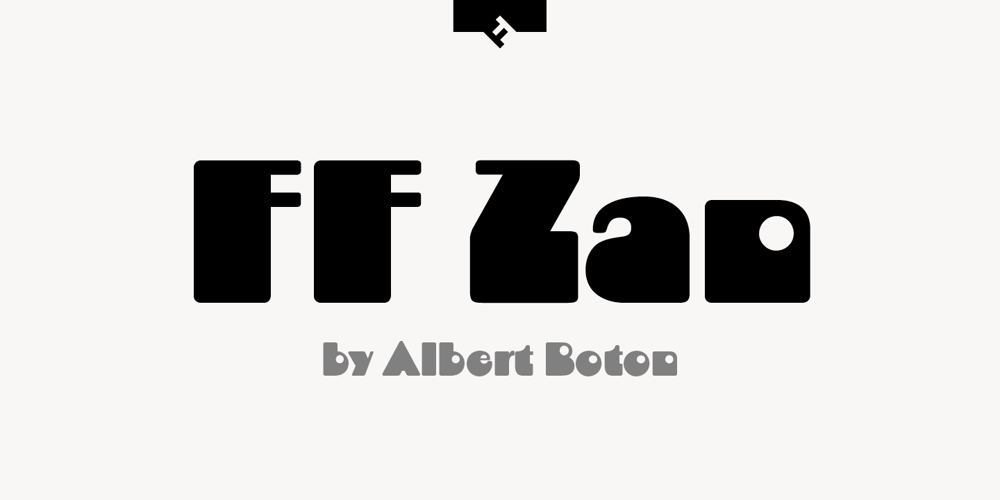
FF Zan Font Family was designed by Albert Boton and published by FontFont. FF Zan contains 1 styles and family package options. French type designer Albert Boton created this display FontFont in 2002. The font is ideally suited for advertising and packaging, music and nightlife as well as poster and billboards. FF Zan provides advanced typographical support with features such as ligatures, alternate characters, and case-sensitive forms. It comes with proportional lining figures.